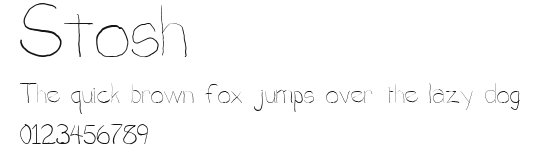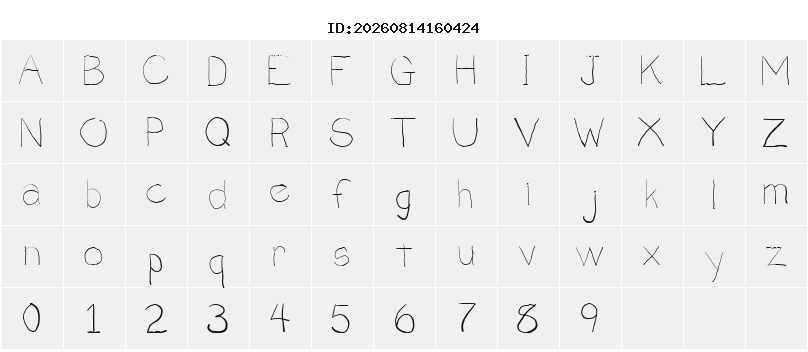
• Font Name: Stosh
Stosh.ttf is a modern, elegant sans-serif font designed for ultimate readability and visual harmony. Perfect for branding, headlines, web design, and print materials.